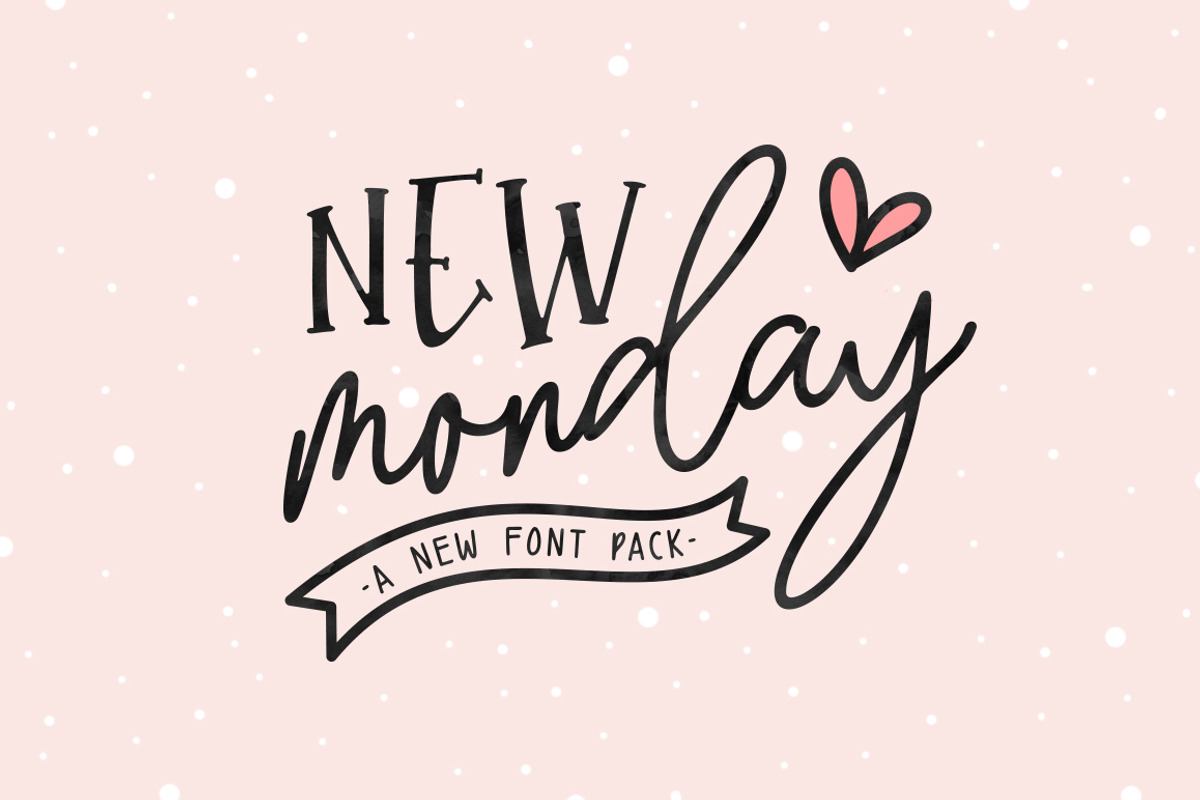
New Monday | Font Pack Free Download is a versatile and stylish font pack that combines modern sans-serif, script, and display styles, making it perfect for a wide variety of design projects. Whether you need sleek, minimalist typography for branding or playful, handwritten-style fonts for social media graphics, this pack has something for every creative need.
Each font in the pack complements the others beautifully, giving you flexibility and cohesion across your projects. Ideal for logos, invitations, website design, packaging, and more, New Monday brings contemporary elegance and charm to any project.